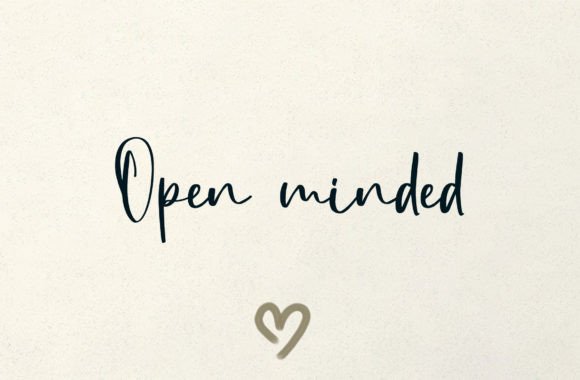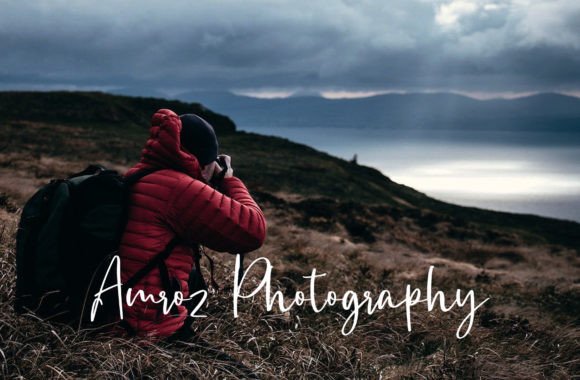
About Dalma Font
Dalma is a brush script font that has a fun modern vibe. The Dalma manuscript is cursive and elegant and will give authentic and modern handwriting feel to any design.